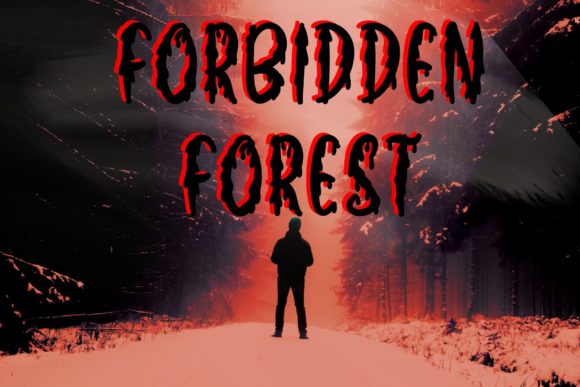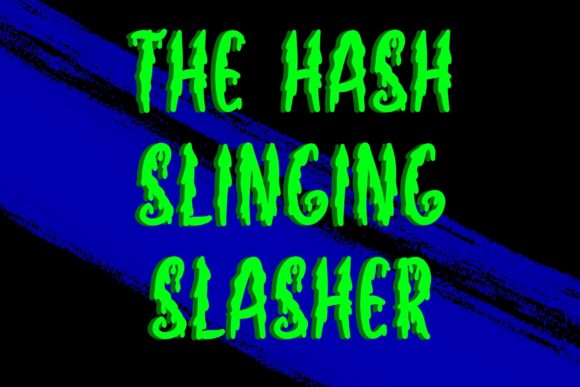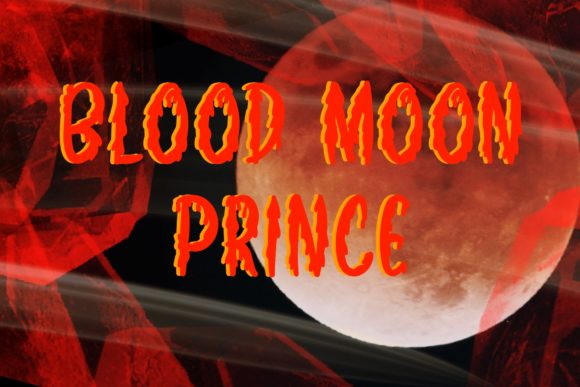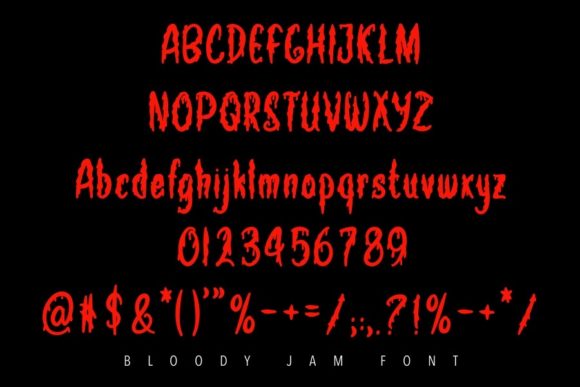
The Bloody Good Truth About Bloody Jam Font
I’ll never forget the time I was working on a Halloween-themed project for a client, and I just couldn’t find the right font to capture the spooky spirit. I scrolled through page after page of font options, but nothing seemed quite right. That was until I stumbled upon Bloody Jam Font. This bold and spooky display font has been a game-changer for my design work, and I’m excited to share my experience with you.
An Honest Review of Bloody Jam Font
So, what makes Bloody Jam Font so special? Let’s dive into the good stuff!
- ✨ Unique and Dramatic Design: Bloody Jam Font is unlike any other font I’ve seen. Its bold, dramatic letters are perfect for making a statement in your designs.
- ✅ Perfect for Halloween Designs: Whether you’re working on a Halloween-themed project or just want to add a spooky touch to your designs, Bloody Jam Font is the perfect choice.
- 👻 Easy to Read: Despite its bold and dramatic design, Bloody Jam Font is surprisingly easy to read, even in smaller sizes.
Of course, no font is perfect, and Bloody Jam Font does have a few small quirks.
- 🤔 Limited Use Cases: While Bloody Jam Font is perfect for Halloween designs, it may not be the best choice for other types of projects. Its bold and dramatic design can be overwhelming in certain contexts.
- ⚠️ Glyph Support: Some users have reported issues with glyph support, particularly with certain special characters. However, this is relatively rare and can often be resolved with a simple update.
The Backstory Behind Bloody Jam Font
Bloody Jam Font was designed by a team of creatives who wanted to create a font that would capture the spooky spirit of Halloween. With its bold and dramatic design, Bloody Jam Font is the perfect choice for designers who want to make a statement.
- Q: What type of designs is Bloody Jam Font best suited for?
- A: Bloody Jam Font is perfect for Halloween-themed designs, but it can also be used for other spooky or dramatic designs.
- Q: Is Bloody Jam Font easy to read?
- A: Yes, despite its bold and dramatic design, Bloody Jam Font is surprisingly easy to read, even in smaller sizes.
- Q: Does Bloody Jam Font support OpenType features?
- A: Yes, Bloody Jam Font supports OpenType features, including glyphs and stylistic alternates.